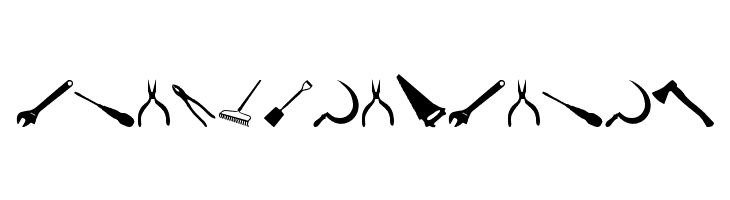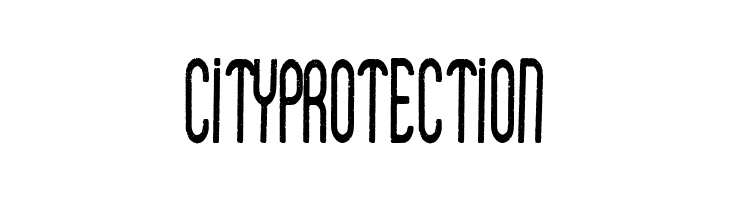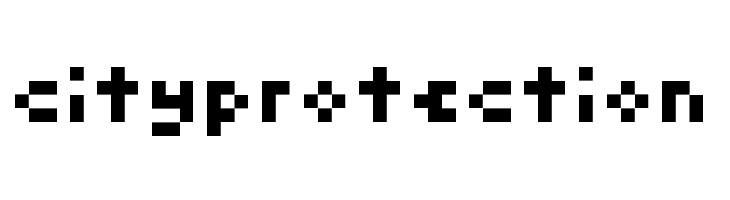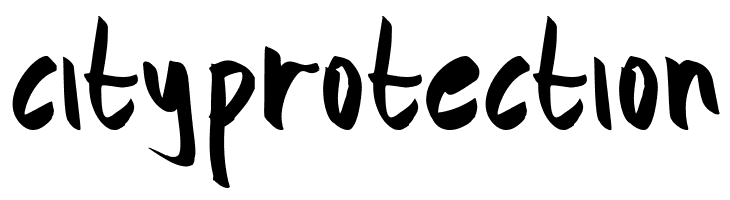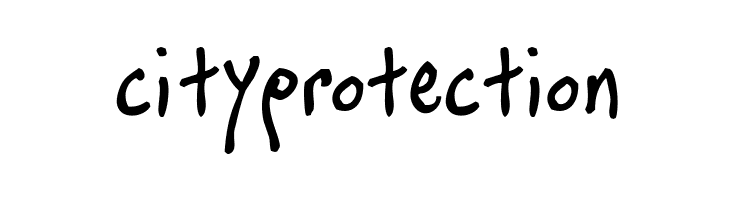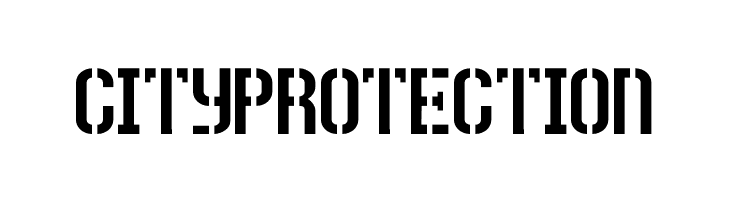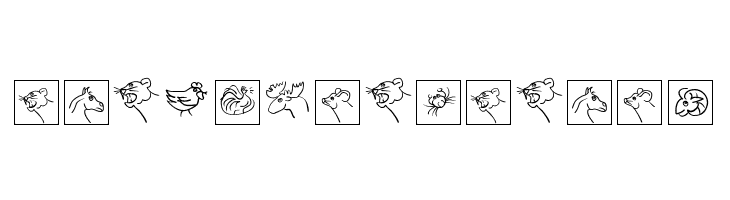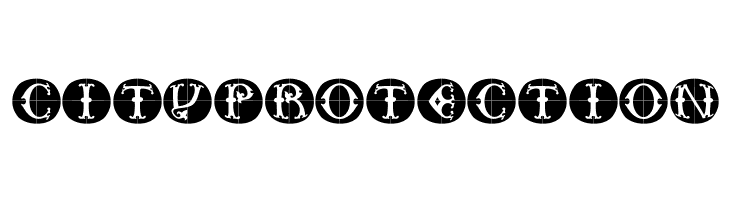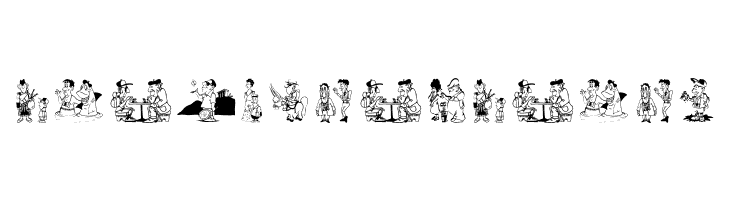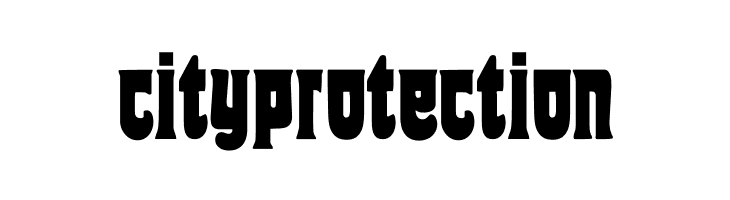
A playful, casual handwritten font with smooth, flowing lines.
Playful, hand-drawn animal illustration font.
A playful, handwritten font with bold, irregular strokes and a casual style.
A pixelated, retro-style font with a blocky, digital appearance.
A bold, angular font with a modern, geometric style.
A bold, italicized font with a modern, angular design.
A whimsical, doodle-like font with playful and expressive illustrations.
A rune-inspired font with angular strokes and geometric forms, offering a mystical and ancient aesthetic.
A bold, abstract font with geometric forms and high contrast strokes.
A classic serif font with elegant, traditional letterforms and moderate contrast.
A bold, hand-drawn font with a playful and energetic style.
An artistic, hand-drawn font with dynamic strokes and expressive character.
A bold, expressive handwritten font with dynamic strokes and a playful aesthetic.
Bold geometric sans-serif font with square characters and uniform spacing.
A decorative font made from tool silhouettes, perfect for construction-themed designs.
A bold, stencil-style font with high contrast and geometric shapes.
A decorative, geometric font with uppercase letters in framed designs.
A playful, bold outline font with rounded characters and a whimsical style.
A bold, rounded font with a playful, retro vibe.
A bold, rounded font with a playful and chunky style.
A decorative font with characters enclosed in circular outlines, featuring a vintage and artistic style.
An ornate, decorative font with intricate flourishes and circular enclosures.
Cartoonish, illustrative font depicting tourists in various scenarios.
A decorative font where each character is a detailed toy illustration.
A modern, elongated font with a textured, vintage feel.
An abstract, artistic font inspired by Kandinsky's style, featuring unique geometric compositions.
A clean, modern sans-serif font with uniform strokes and minimalist style.